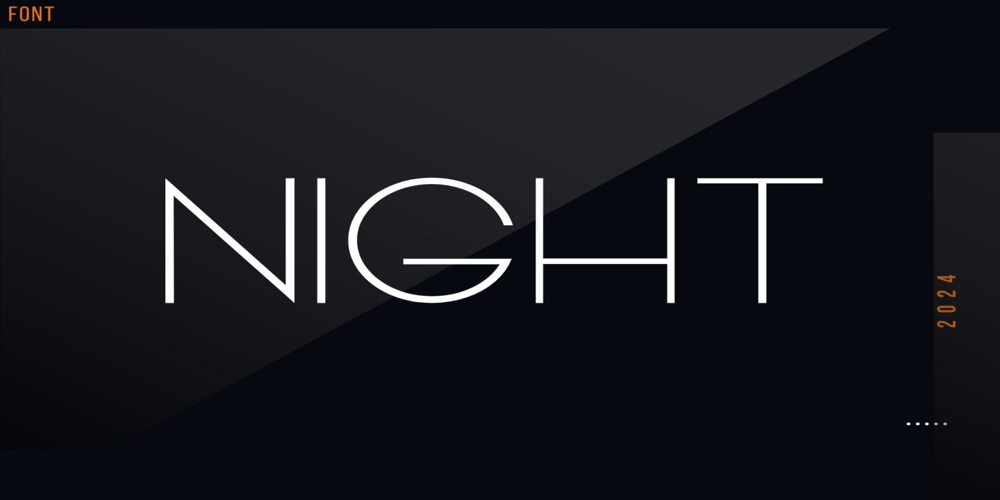
Night Font Family was designed by Gustav Jaeger and published by Adita Fonts. Night contains 1 styles and family package options. Night is a minimal and neat sans serif font. It can easily be matched to an incredibly large set of projects, so add it to your creative ideas and notice how it makes them stand out!